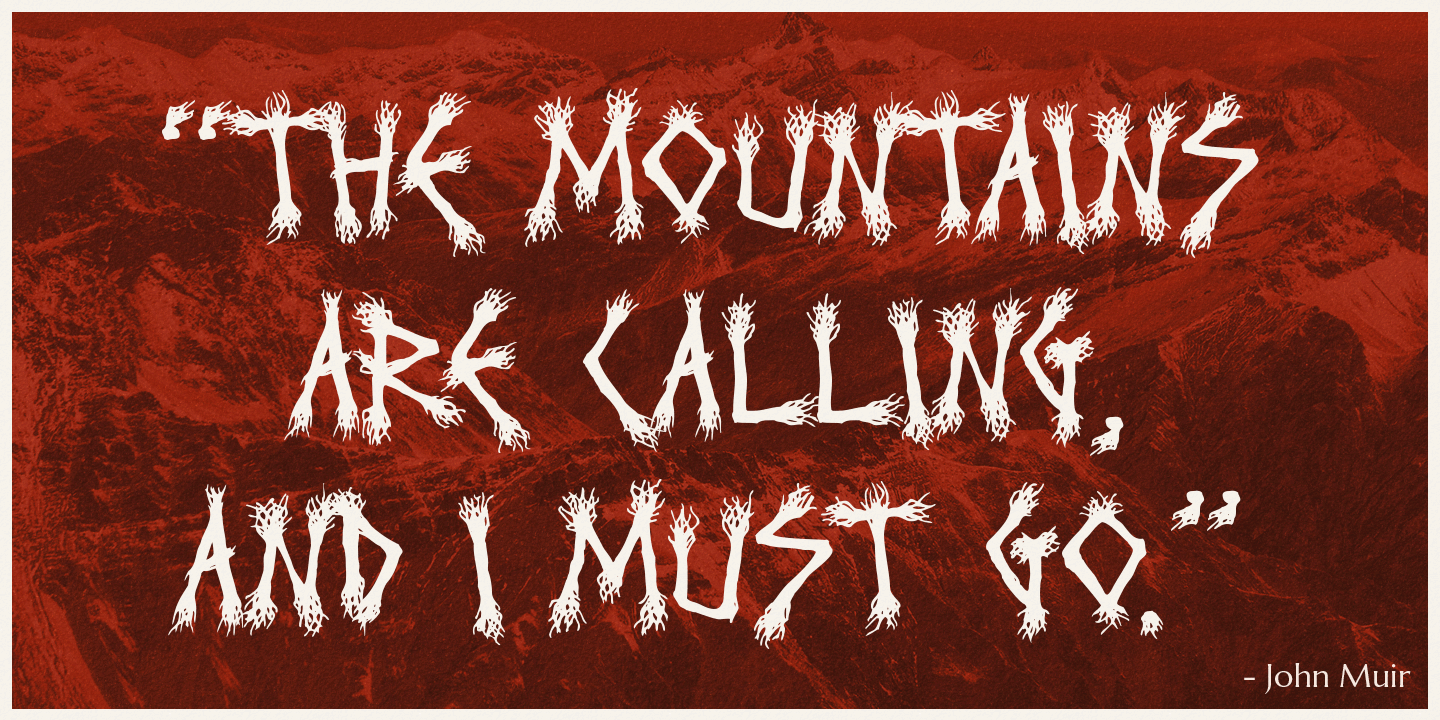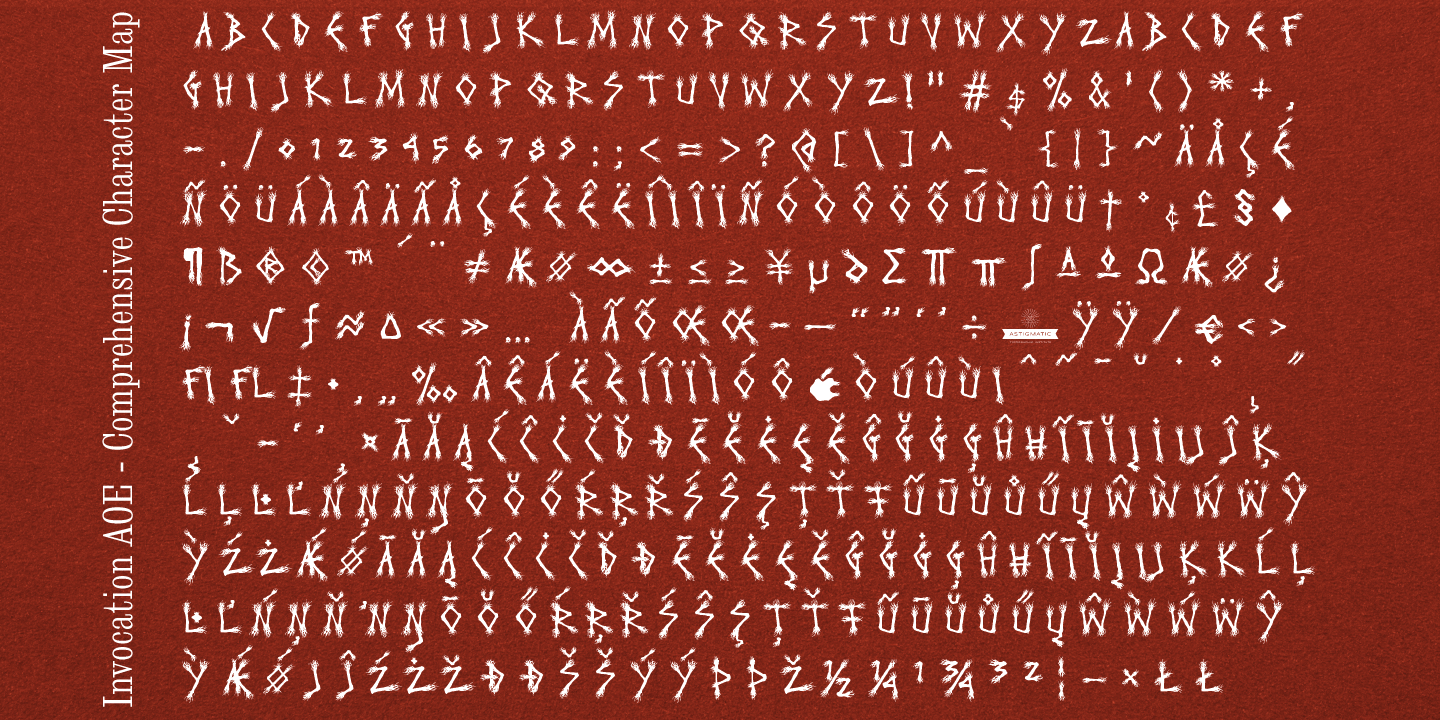
Invocation
Font Family by Astigmatic One Eye
Made from a simple font incantation, the Invocation typeface was born. Inspired by an old Atari game called Necromancer where trees uprooted and came after the wizard, or something like that. The end result, a thematic typeface spawning roots.